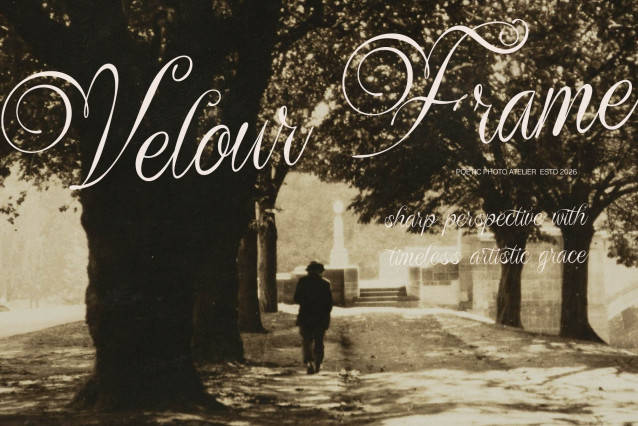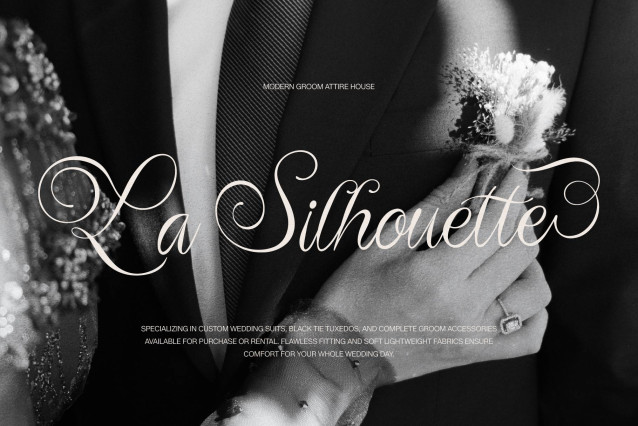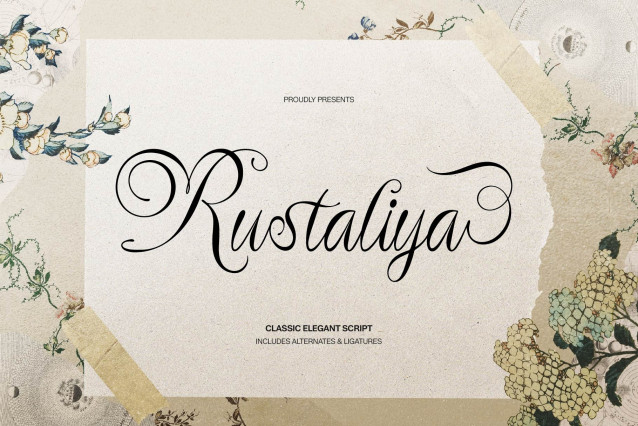
Rustaliya Classic Elegant Script, from Gracetypestudio, suitable for any projects such as: logos, branding projects, homeware designs, product packaging, mugs, quotes, posters, shopping bags, t-shirts, book covers, name card, invitation cards, greeting cards, label, photography, watermark, special events, and all your other lovely projects that need a Script Font taste.